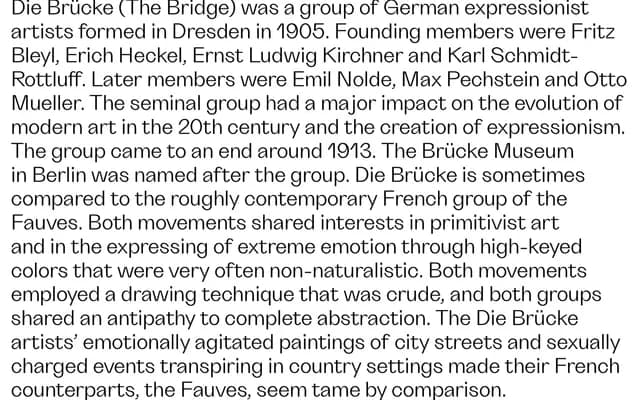
Grotta
Type Department · Due Studio
A neo-grotesque with geometric accents and tight apertures across five weights, updated in 2024 with new italic styles.
Grotta is a neo-grotesque designed by Due Studio, characterised by sharp contrasts, strong geometric details and tight apertures that give the family a taut, energetic quality. Five weights run from Light to Bold, each with a matching italic added or revised in a 2024 update, bringing the family to ten styles in total. A glyph set of 599 characters covers Latin Extended-A alongside OpenType features including contextual alternates, stylistic alternates and localised forms.
Described explicitly as a neo-Grotesk with geometric accents and tight apertures, placing it firmly in the neo-grotesque tradition rather than a pure geometric or humanist sans.